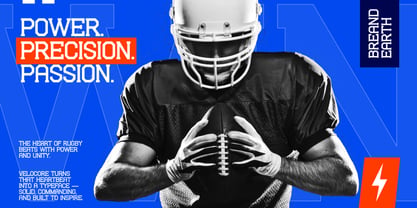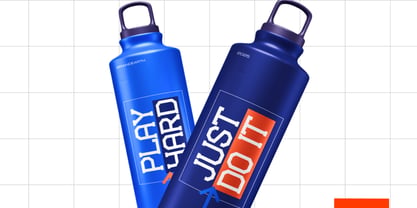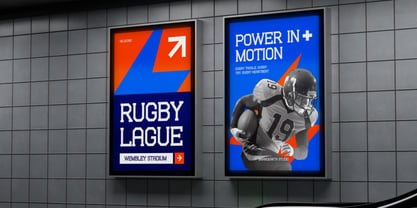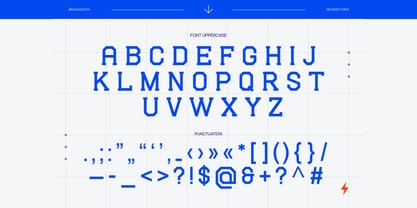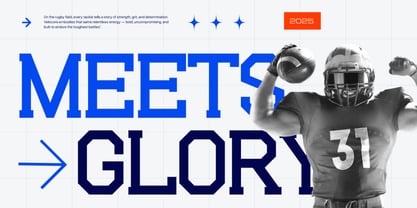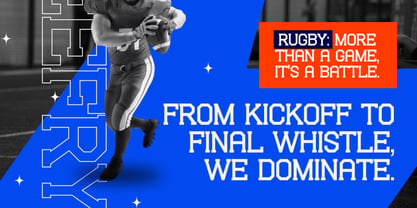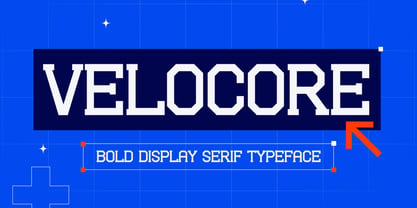
Velocore
by Brandearth
The Velocore Font Family was designed by Moch Rasjid Wiyono and published by Brandearth. Velocore contains 1 styles. More about this family
Velocore is a bold display serif typeface inspired by strength, speed, and modern athletic energy. Its octagonal letterforms and sharp serifs deliver a powerful industrial look, making it ideal for sports branding, automotive design, technology logos, and impactful editorial titles. Relevance and Use Cases is perfect for sports branding, gaming typography, automotive design, bold logo design, esports identity, technology branding, modern editorial titles, varsity posters, competition graphics, event promotions, merchandise design, strong visual headlines, creative agency showcase, industrial advertising, digital cover design, fitness and gym branding,
Designers: Moch Rasjid Wiyono
Foundry: Brandearth